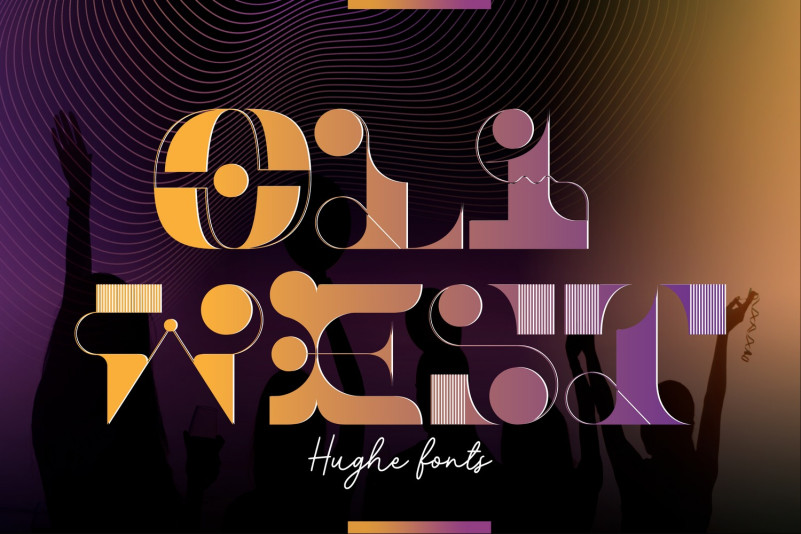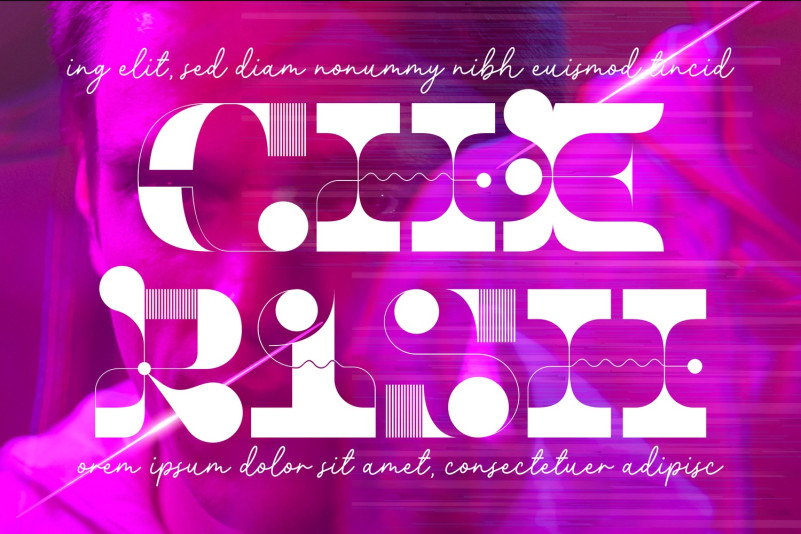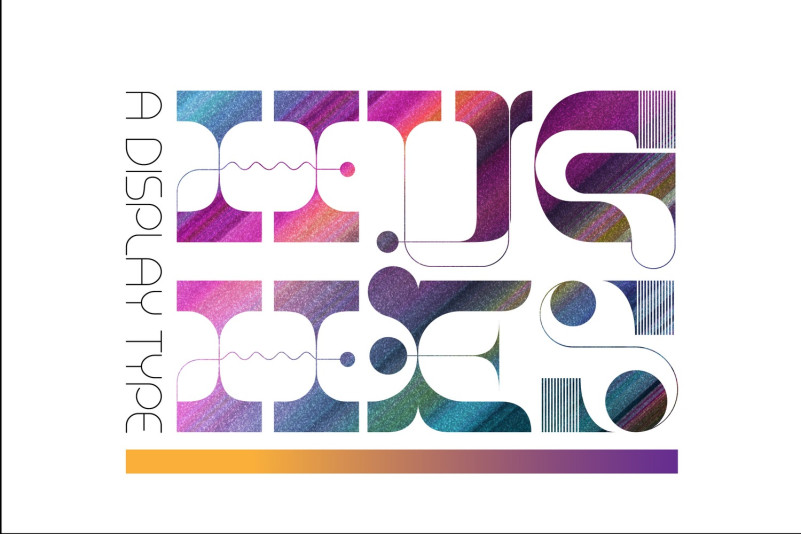
Hughes Display Font
Hughes Display Font is playful font, a chunky, funky, loud, and cutely proud kinda font, and bold while not being shouty with its soft corner. Its large real estate means it’s perfect for an image-fill effect while still being legible. It’s the kinda font that looks like you wanna give it a big hug. This font is suitable for various purposes such as for brands, logos, poster, apparel, and more.